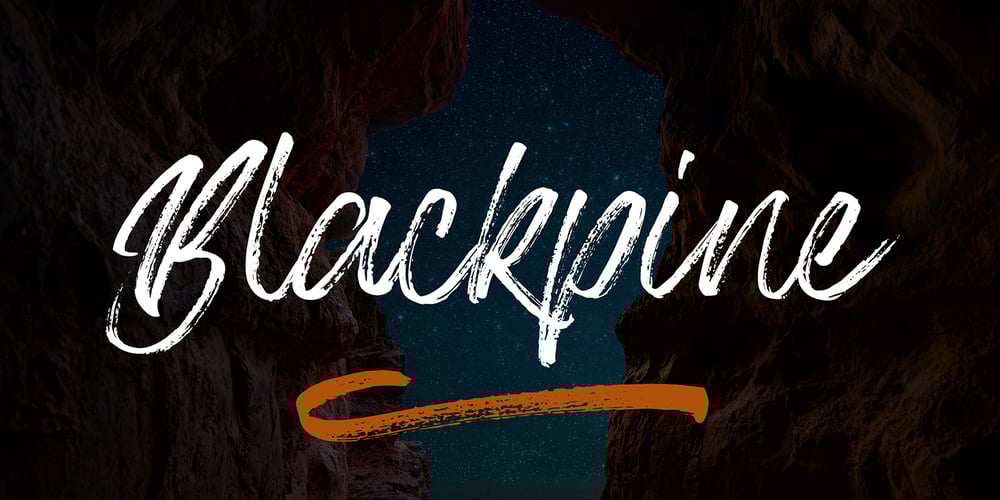
Blackpine Font Family was designed by Yahdi Kumala and published by Rometheme. Blackpine contains 2 styles and family package options. Blackpine is handbrush font, hand-drawn typeface. It has a elegant, classy look and cool. It’s a great font for fashion, apparel projects, signature, album cover, logo, branding, magazine, social media, & advertisements, but also works great for other projects.Highlight : Standard glyphs (Uppercase, Lowercase, Numeral & Punction) Work on PC or Mac PUA Encoded Support No special software is required, The fonts can be opened and used in Adobe Illustrator, Adobe Photoshop, Adobe InDesign, even work on Microsoft Word.